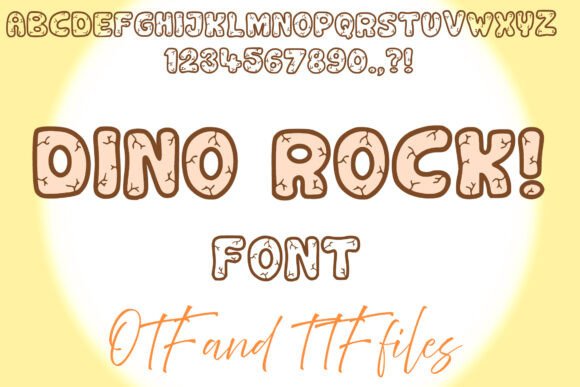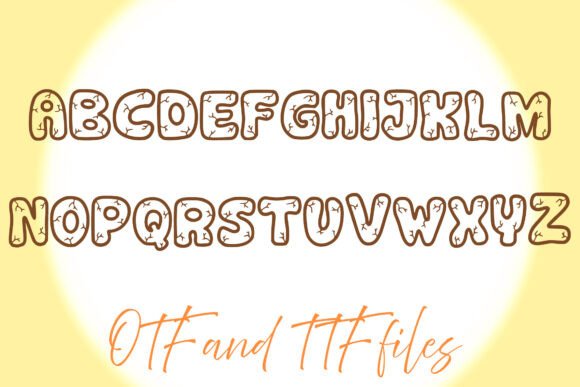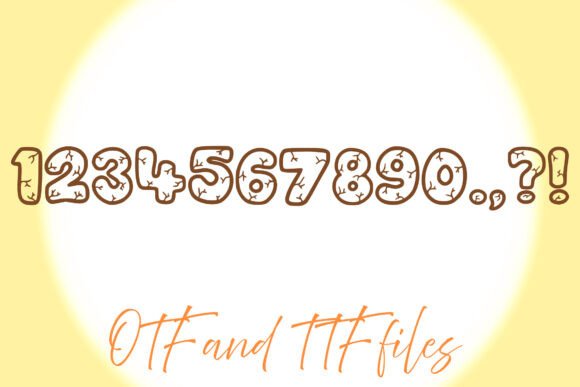
Dino Rock Font
About the Dino Rock Font
Add a touch of class to your work with the Dino Rock Font, a truly exceptional typeface. Step back in time with Dino Rock!, a playful and rugged font inspired by ancient stone carvings. Featuring bold, cracked rock textures, this font is perfect for dinosaur-themed designs, kids’ projects, adventure posters, and prehistoric branding. Whether you’re creating a fun title or an educational display, Dino Rock! adds a Jurassic flair to your work.
Dino Rock’s rugged texture makes it ideal for headlines, posters, and branding projects requiring a strong, playful personality. It excels in short, impactful statements and adds visual interest to packaging or logos where a bold, slightly imperfect aesthetic is desired. However, its textured nature makes it less suitable for body text or UI elements where high legibility is crucial. Avoid using it for long paragraphs or small sizes.
For optimal pairing, consider a clean sans-serif like Open Sans for body copy to balance Dino Rock’s boldness. Alternatively, a classic serif such as Garamond could provide elegant contrast, softening the ruggedness while maintaining a sophisticated feel. For a more playful approach, a rounded sans-serif like Lato could complement the font’s energetic character.
The font projects a bold, adventurous, and slightly mischievous personality; perfect for brands targeting younger audiences or conveying themes of exploration, fun, or even a touch of rebellion.